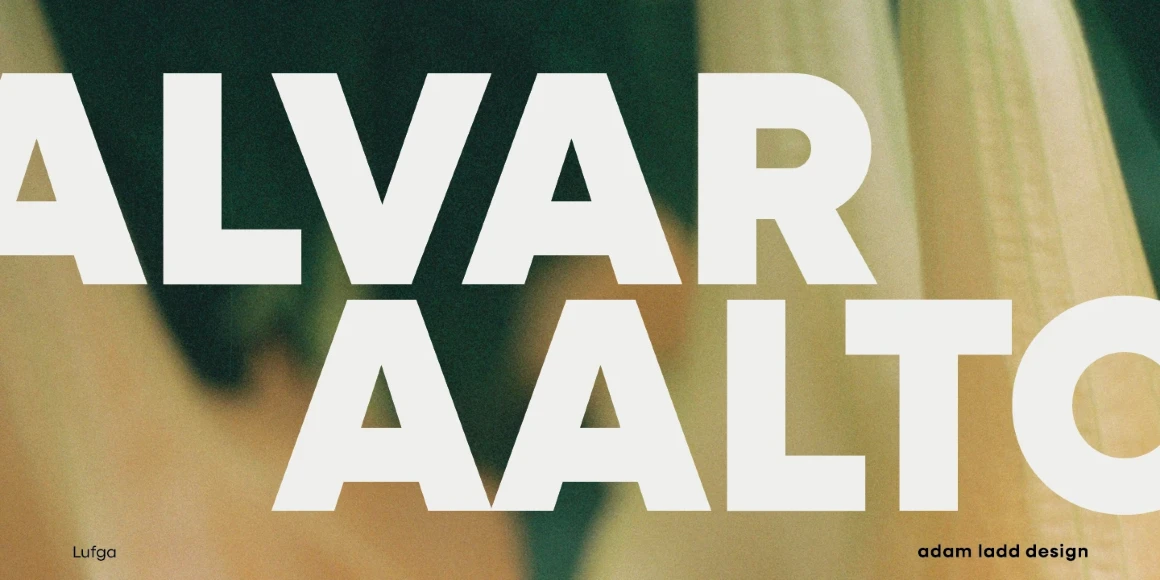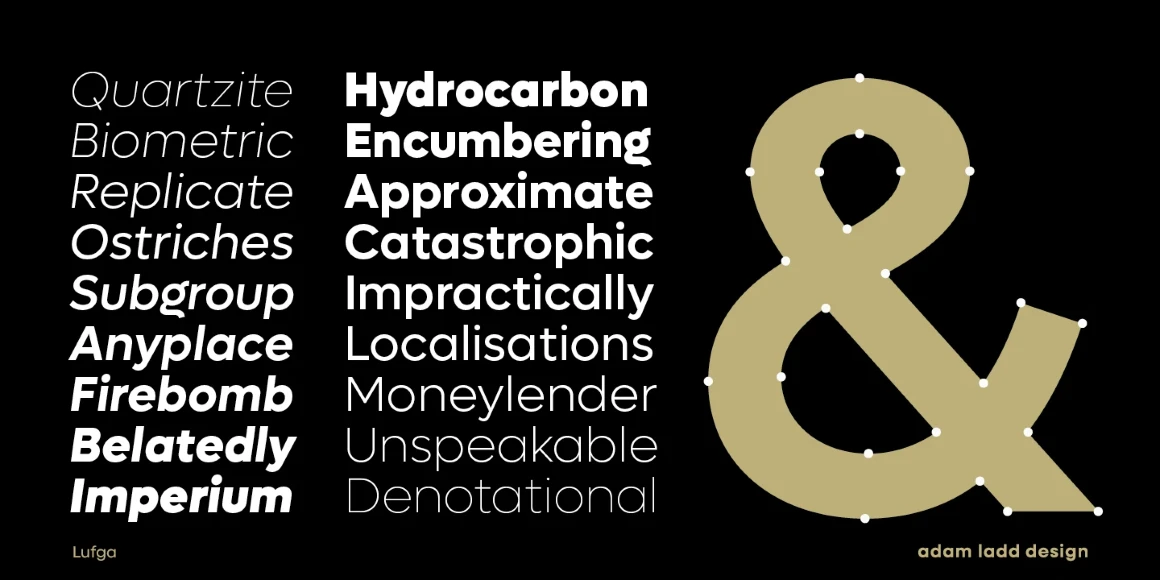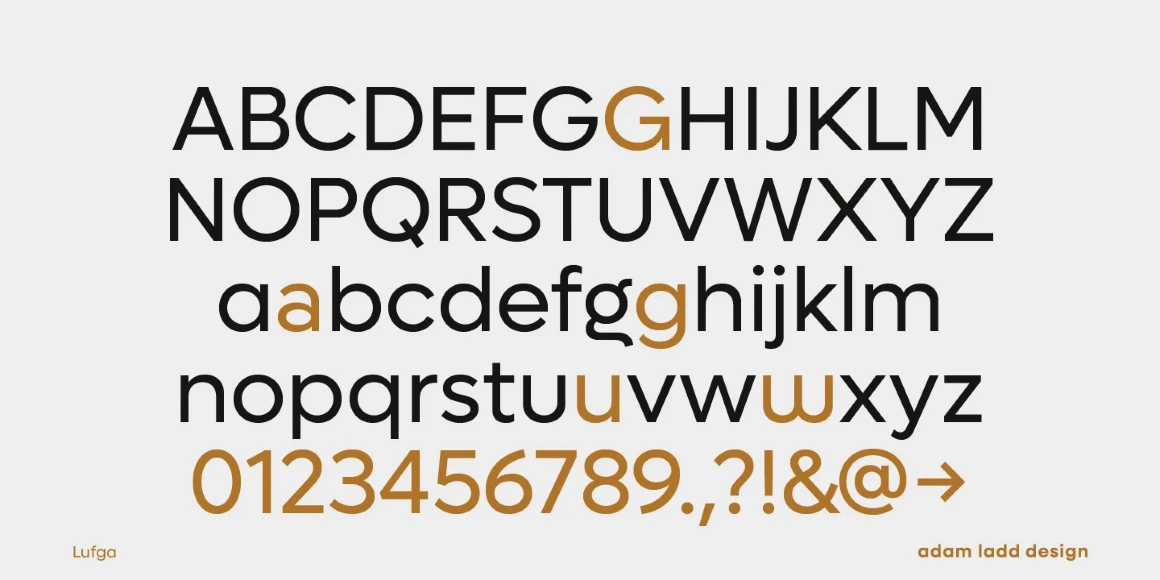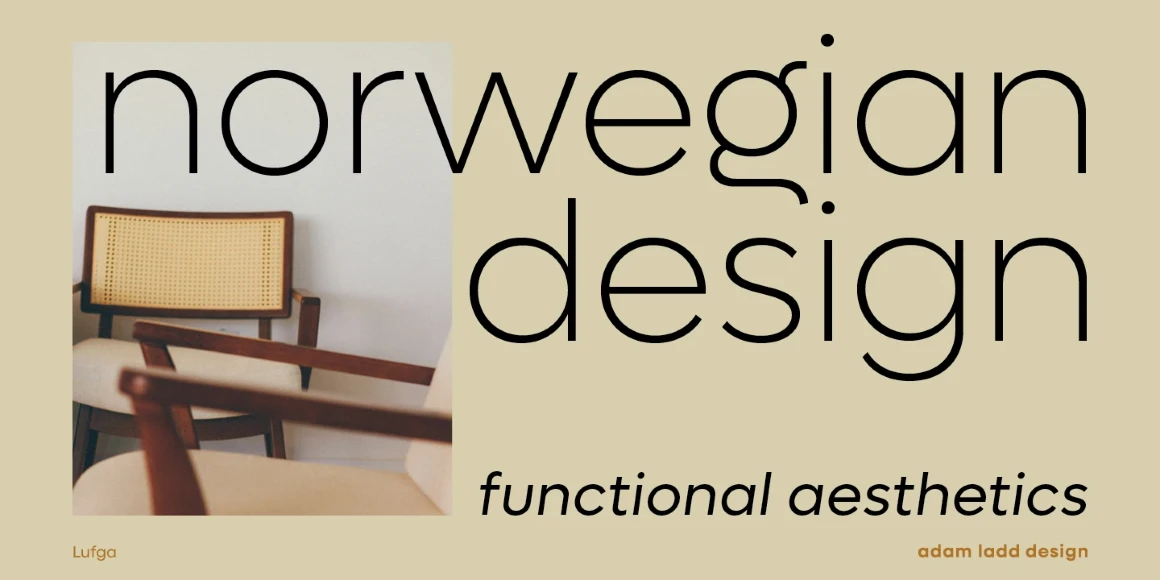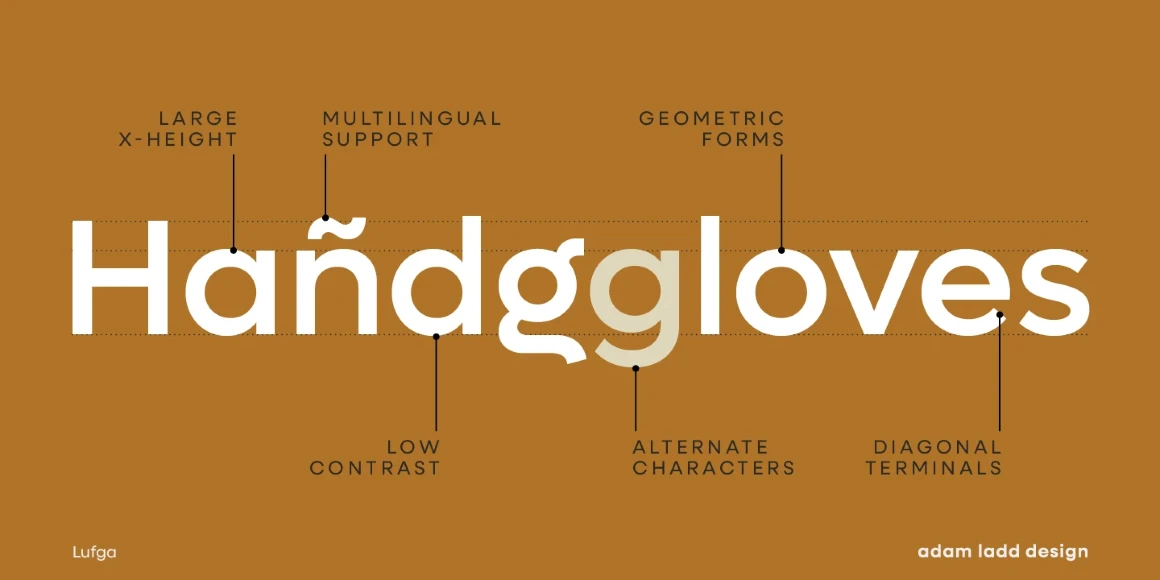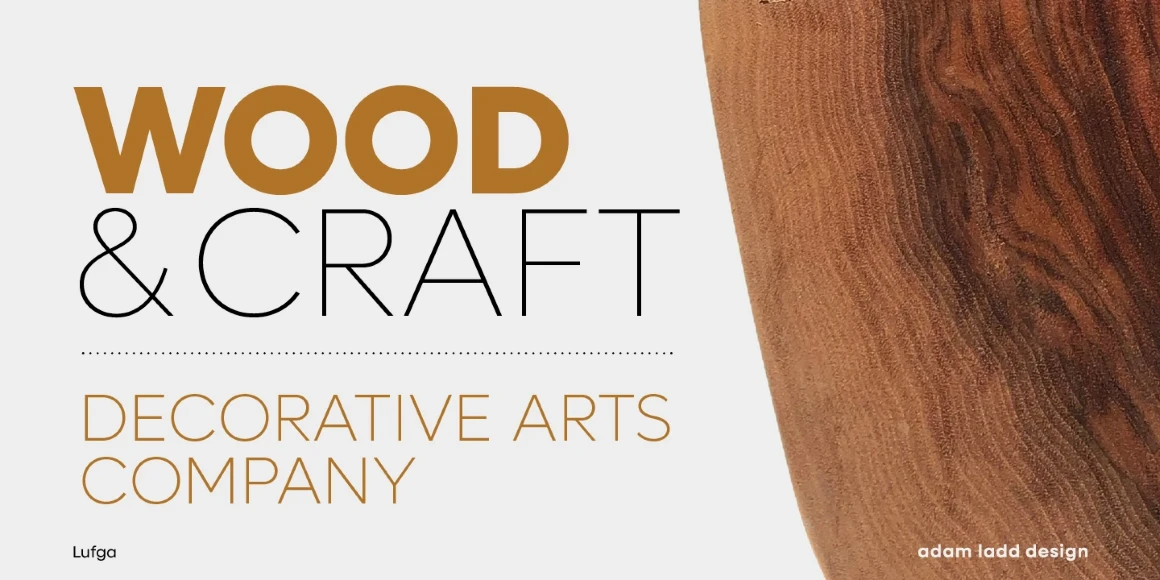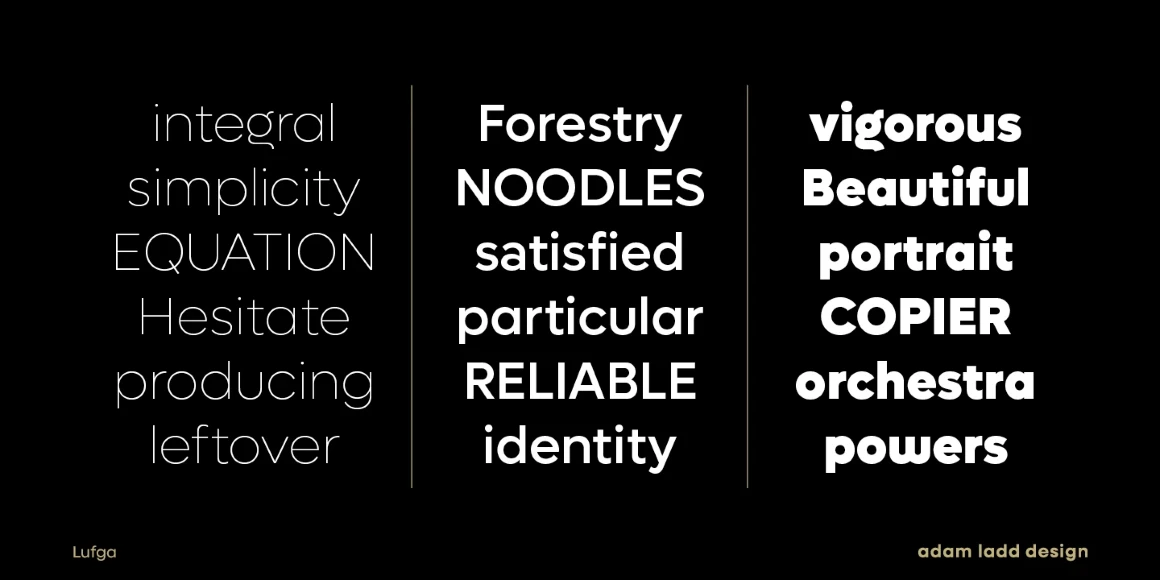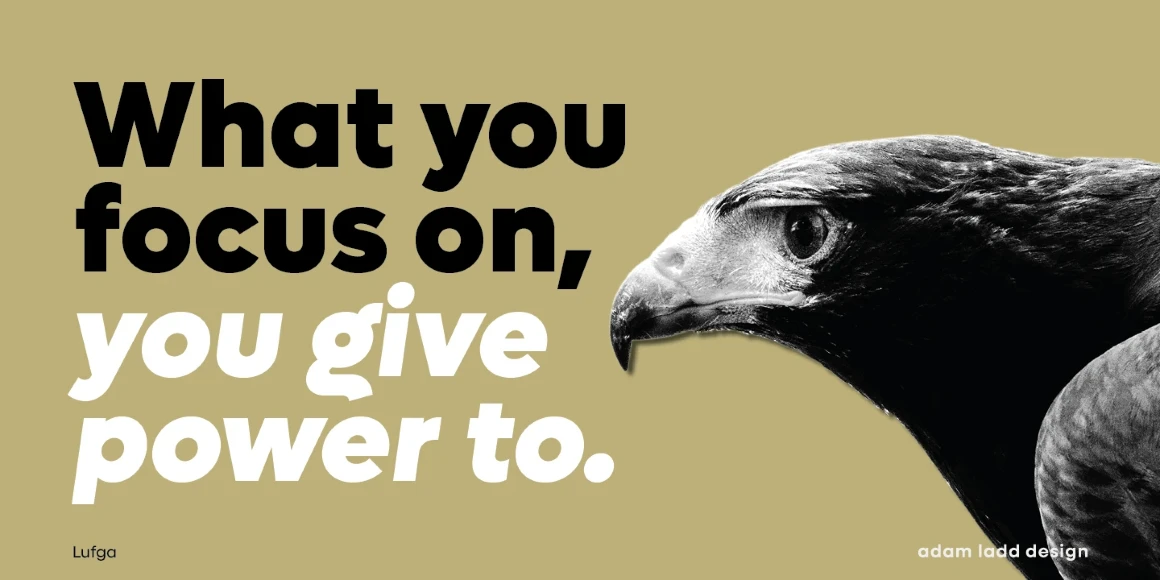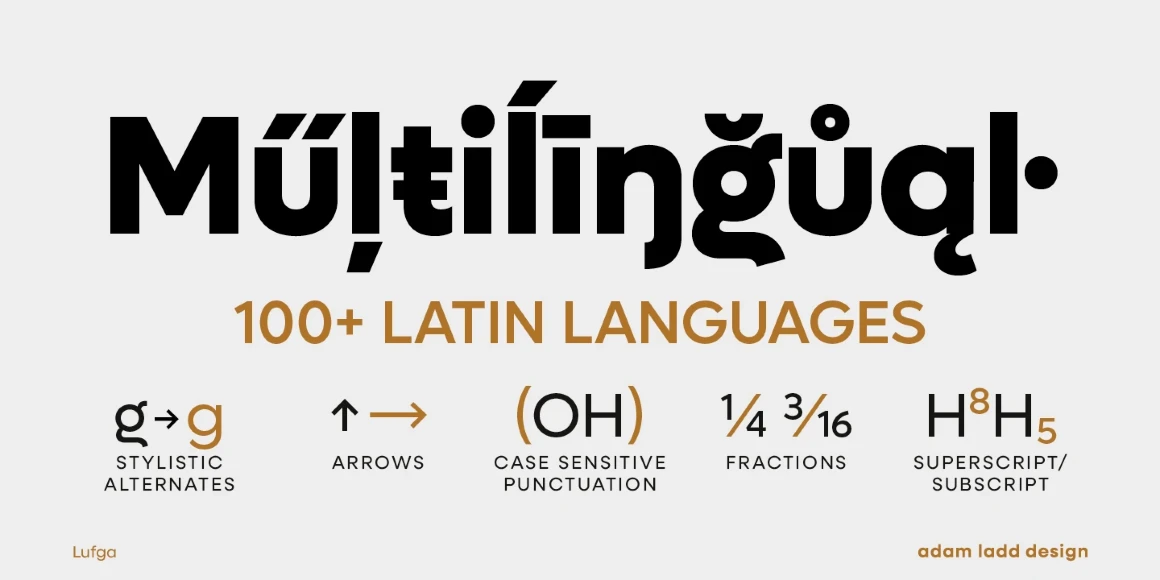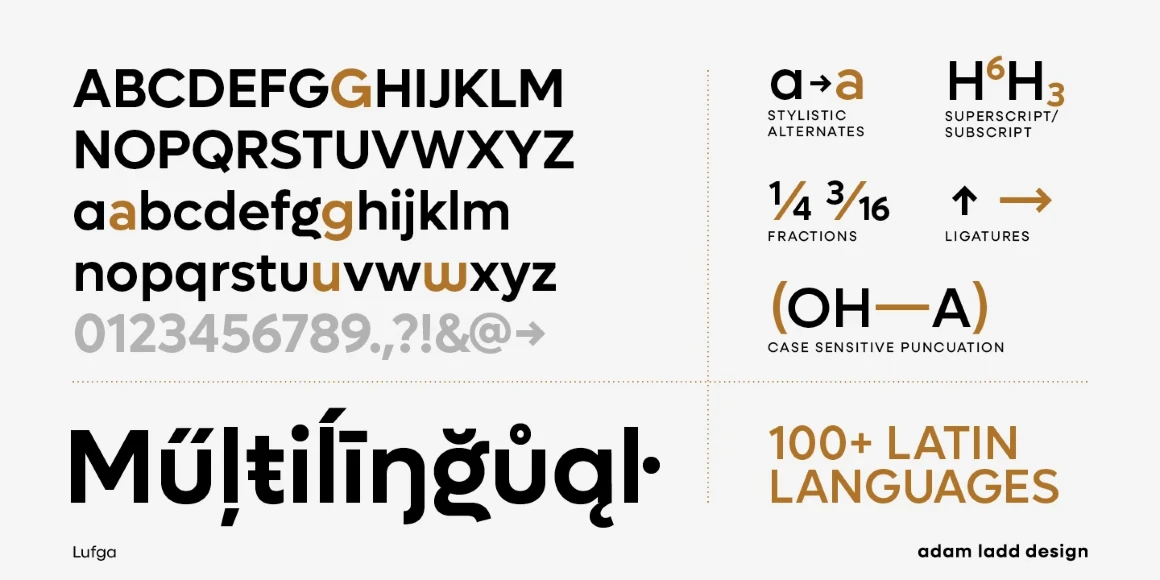
Lufga
By Adam Ladd
Lufga is a uniquely different, geometric sans serif font family. It has modern individuality and boasts distinctive alternates for when you want to set your project apart from the rest. Most notably, the unexpectedly unique double-story g and stemless u. With a minimal design, large x-height, and thin through black weights (with italics), Lufga is versatile, from reliable text to stylish display. The opportunities are endless! Branding, advertising, packaging, magazines, websites and more!